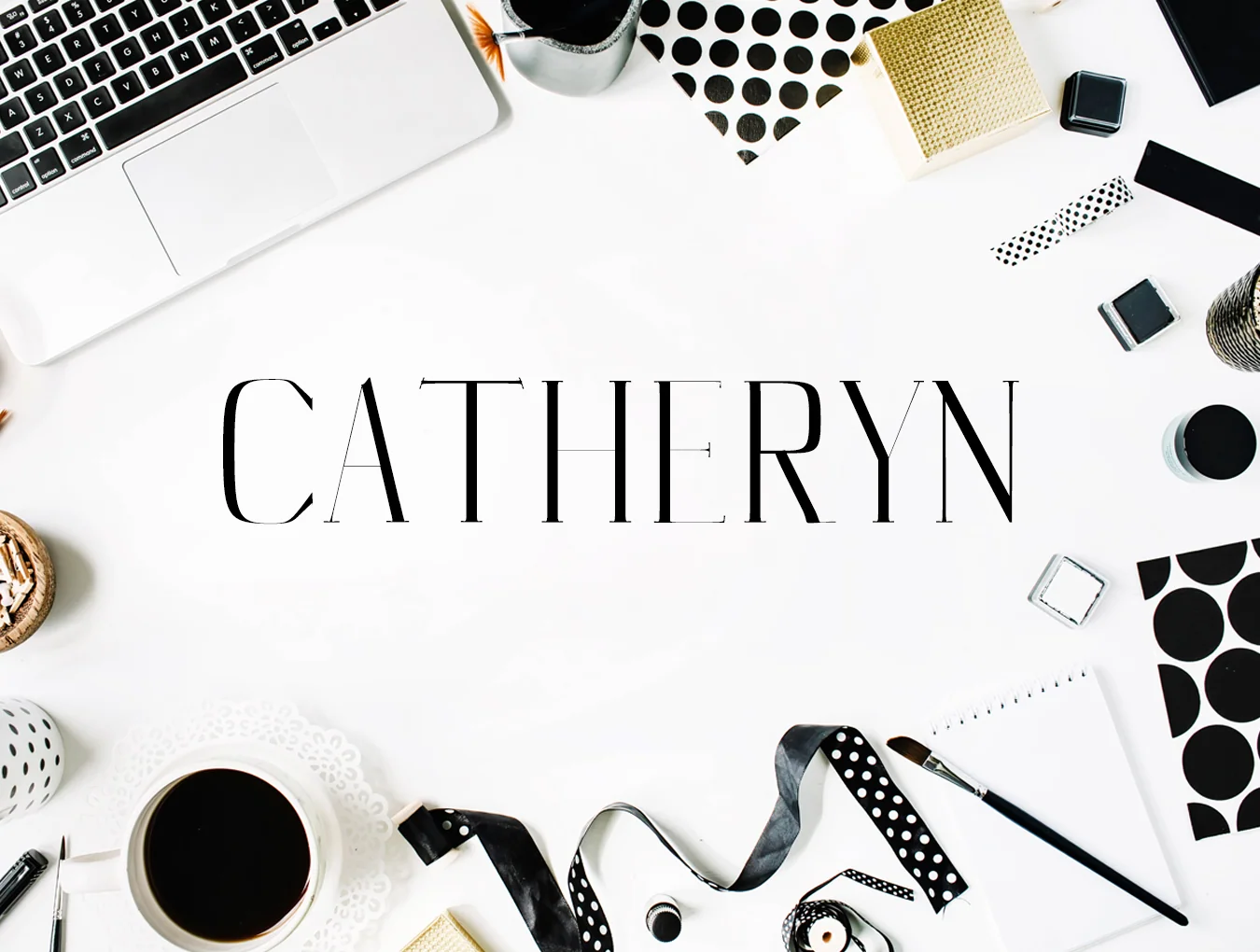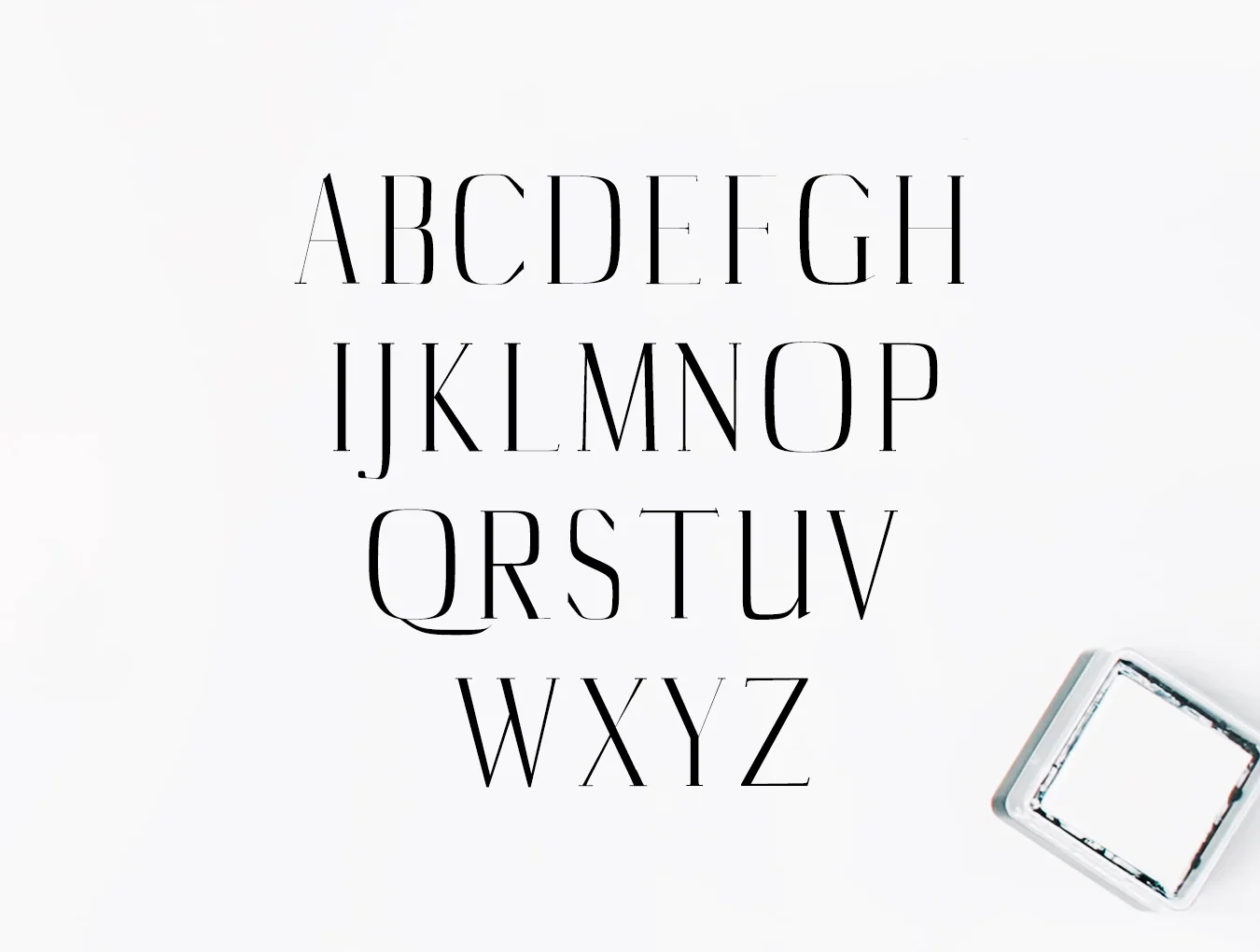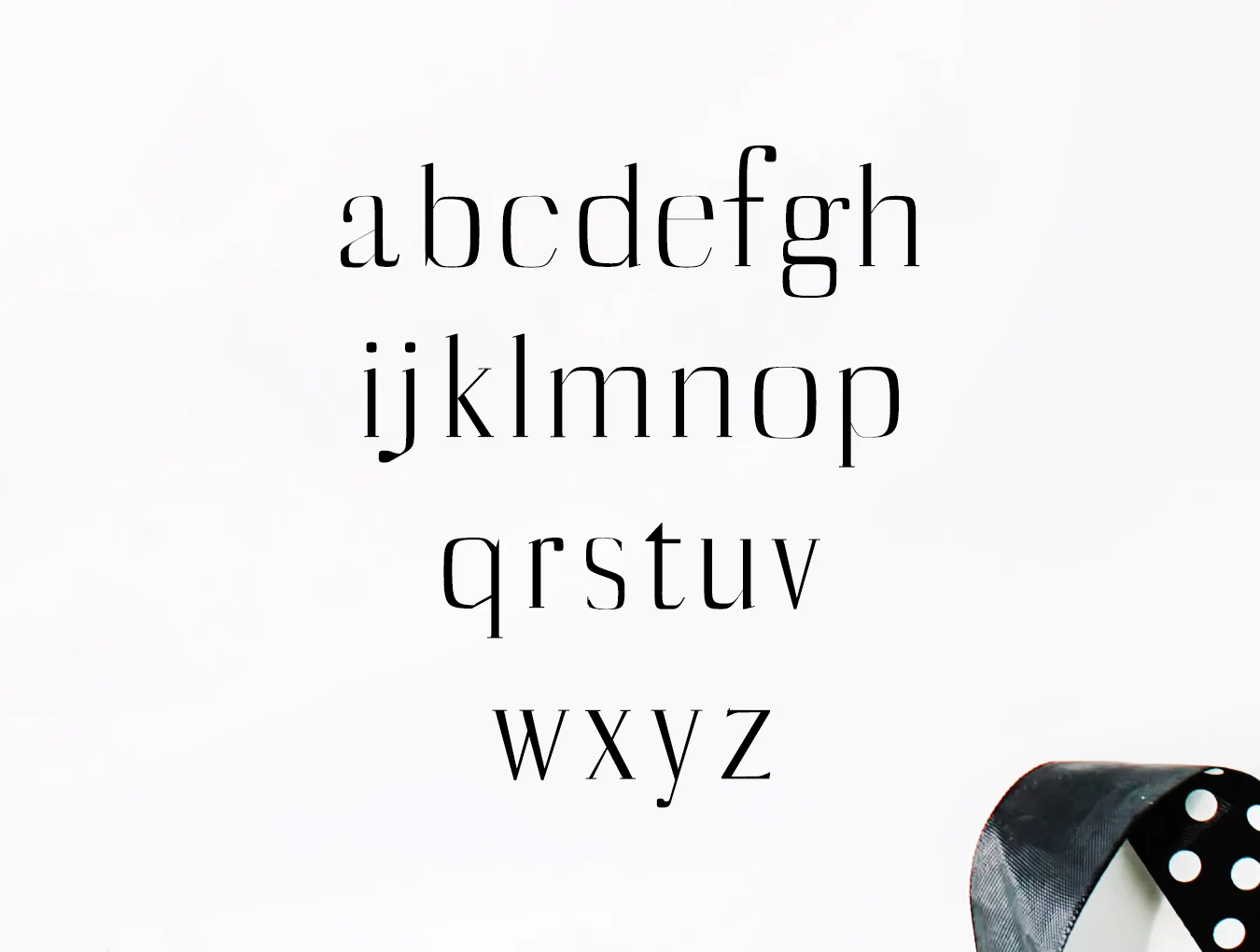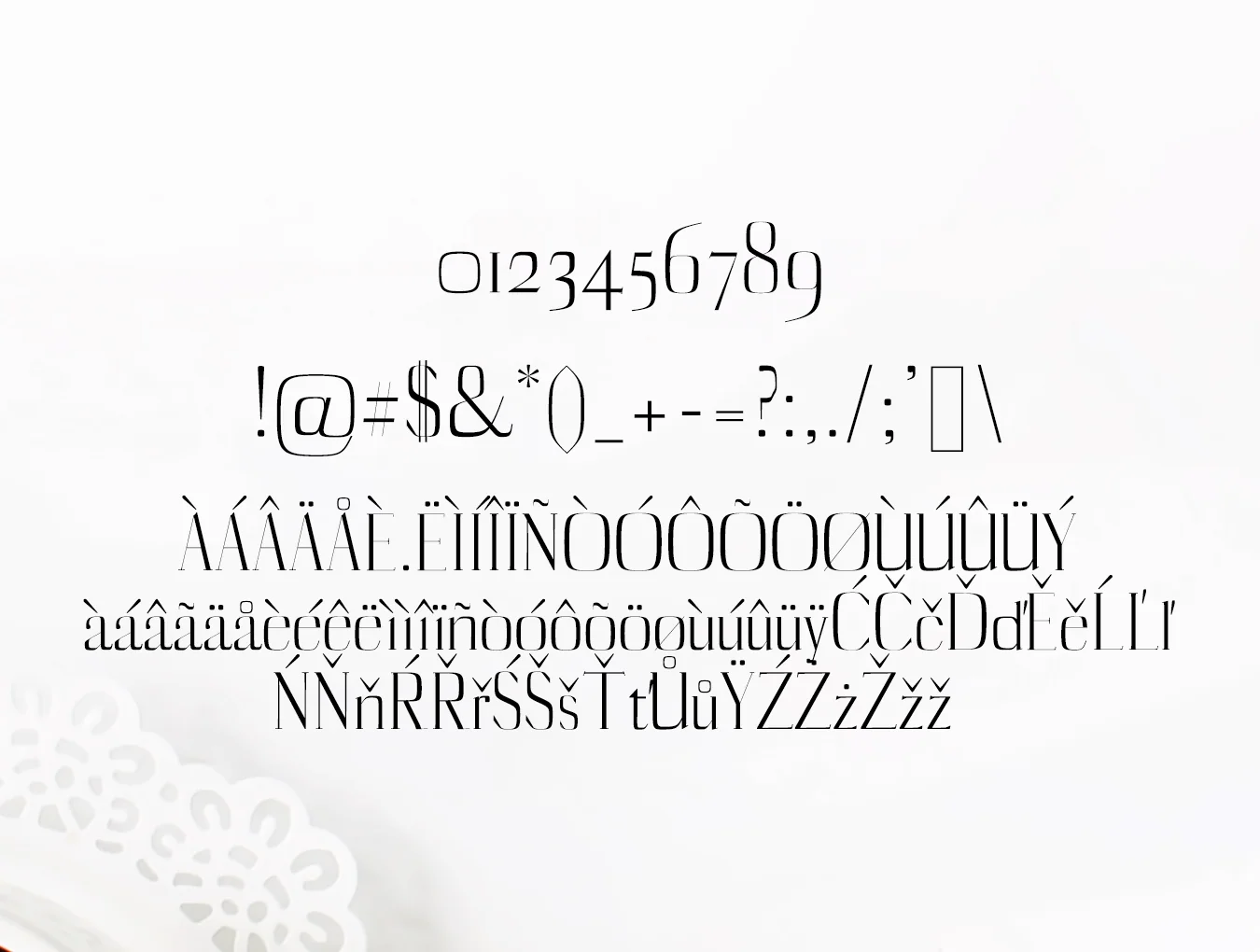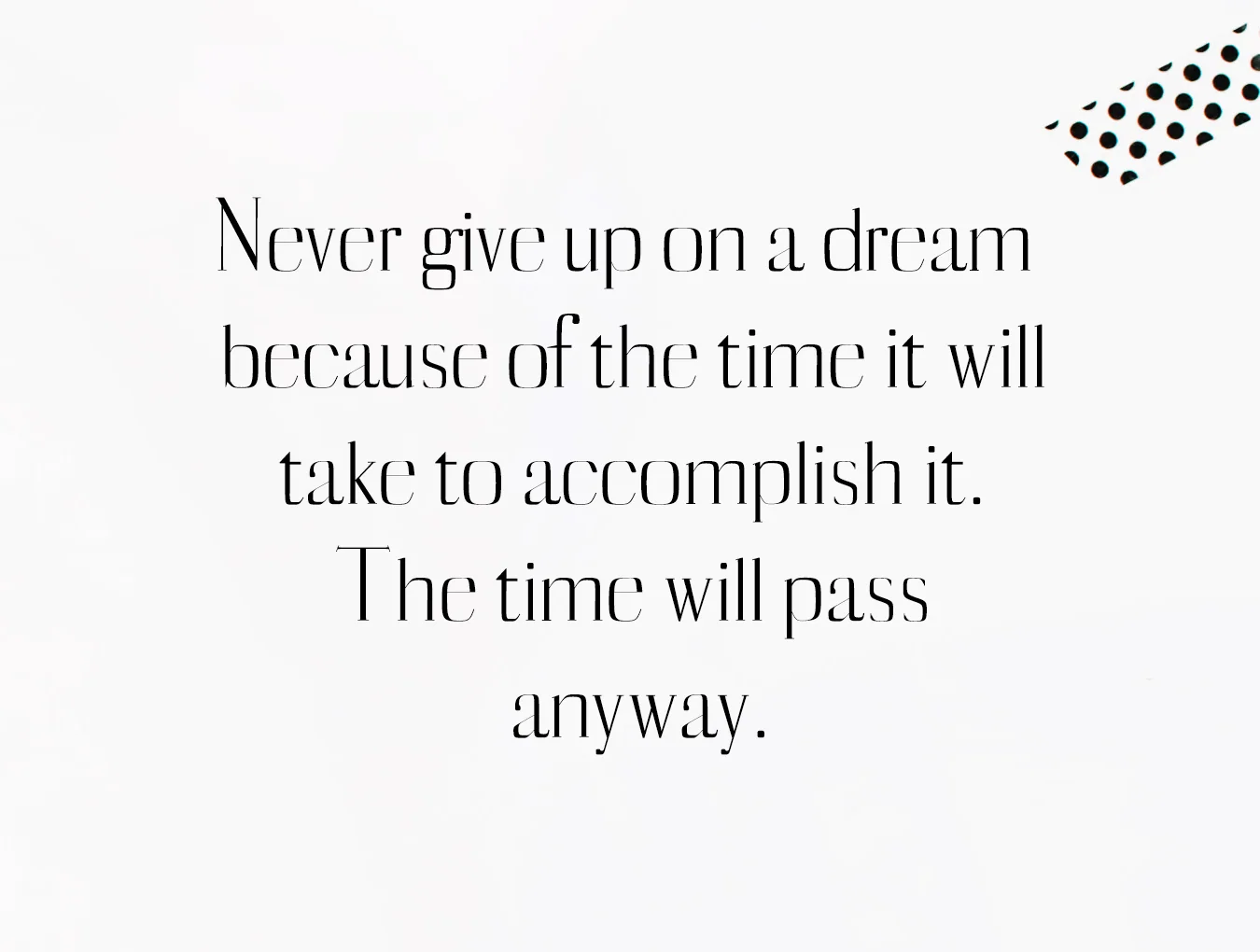
Catheryn Serif
Catheryn Serif 4-Font Family Bundle
Serif-style typeface
254 included glyphs
Regular and Light weights
Catheryn Serif Typeface is a refined four-font family with a fresh, contemporary serif style. Ideal for elegant logos, headings, websites, and branding, it shines in all caps with generous spacing for a classy effect, or in mixed case for a timeless look.